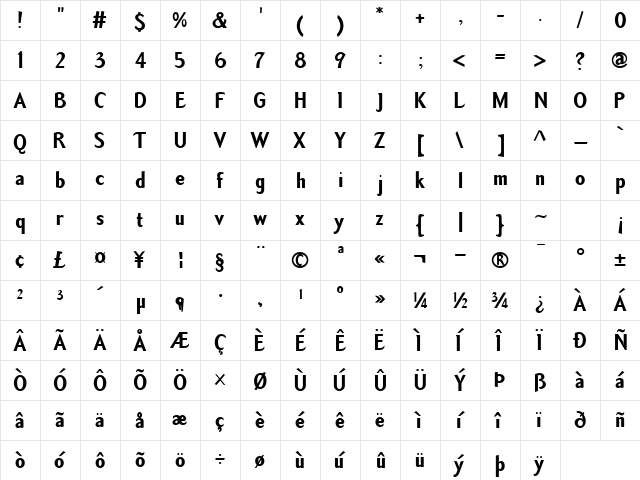
TemaCantanteSansBold Bold Font Preview
TemaCantanteSansBold Bold
TemaCantanteSansBold Bold Font Details
Design Context for TemaCantanteSansBold Typeface
TemaCantanteSansBold takes a measured approach to typography — its balanced proportions and neutral character make it a reliable workhorse for both digital and print work. The heavy weight commands attention and anchors typographic hierarchies.